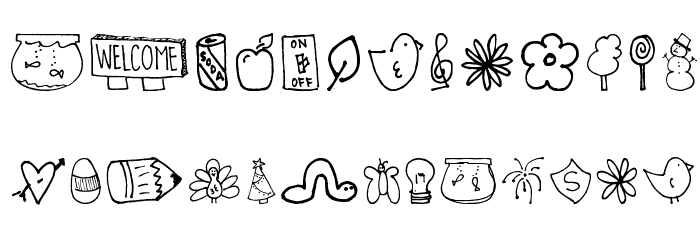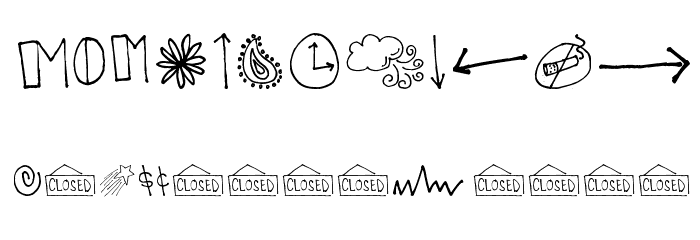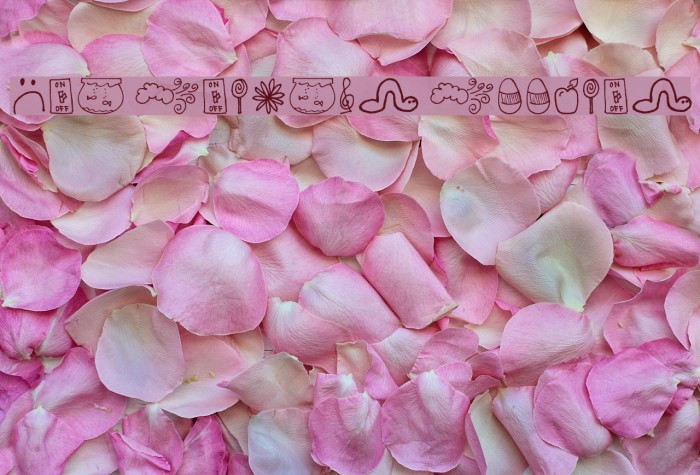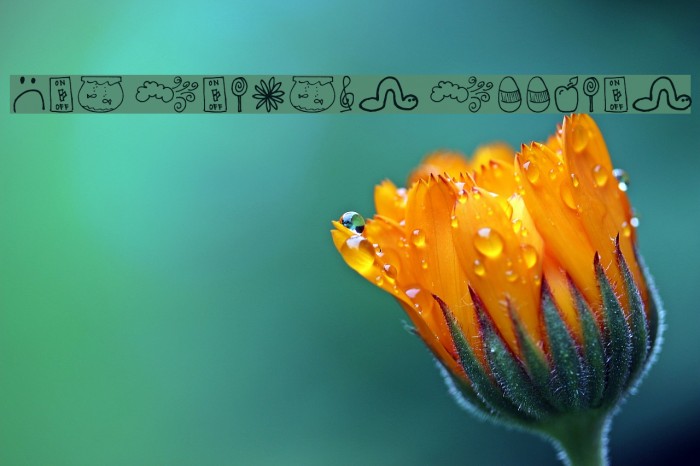
Pea Deliah's Doodles Font
This collection features a playful and whimsical set of doodles, each hand-drawn with a casual and fun style. The illustrations include a variety of everyday objects and symbols such as clouds, sun, moon, food items, and nature elements. Each doodle is unique, with a charmingly imperfect line quality that adds to its appeal. The designs are simple yet expressive, capturing a sense of spontaneity and creativity. These doodles can be used to add a personal touch to projects, conveying a sense of lightheartedness and joy.
A playful collection of hand-drawn doodles with a whimsical and casual style.
- Font: Pea Deliah's Doodles
- Proposed Projects: Ideal for scrapbooking, greeting cards, children's books, and DIY projects where a personal and fun touch is desired.
- Overall Style: Whimsical
- Use Case: Decorative elements, Craft projects